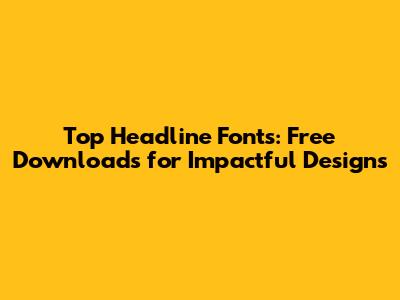
- They grab attention: In a world saturated with information, a striking headline font can cut through the noise and capture the reader's interest.
- They set the tone: The font choice communicates the overall mood and style of your content, whether it's professional, playful, elegant, or edgy.
- They improve readability: A well-chosen headline font is easy to read and understand, even at a glance.
- They reinforce branding: Consistent use of specific headline fonts can strengthen brand recognition and create a cohesive visual identity.
- They guide the eye: Headlines act as signposts, guiding the reader through the content and highlighting key information.
- Consider your brand: Your headline font should reflect your brand's personality and values. If your brand is modern and edgy, a bold sans-serif font might be a good choice. If your brand is classic and elegant, a serif font might be more appropriate.
- Think about your target audience: Your headline font should appeal to your target audience. If you're targeting a young audience, a playful and quirky font might be a good choice. If you're targeting a professional audience, a more serious and sophisticated font might be better.
- Ensure readability: Your headline font should be easy to read, even at a glance. Avoid fonts that are too decorative or stylized, as they can be difficult to decipher.
- Test different options: Experiment with different headline fonts to see what works best for your project. Try pairing different fonts together to create a unique and eye-catching effect.
- Don't be afraid to break the rules: While it's important to follow best practices, don't be afraid to break the rules and try something new. The most important thing is to choose a headline font that you love and that effectively communicates your message.
Choosing the right headline font can make or break your design. A compelling headline grabs attention and draws readers into your content. Luckily, there are tons of fantastic headline fonts available for free download. In this article, we'll explore some of the best options to help you create impactful designs that stand out. We'll cover everything from classic serif fonts to modern sans-serif styles, ensuring you find the perfect match for your project.
Why Headline Fonts Matter
Headline fonts are more than just text; they are a crucial element of visual communication. The right font can convey the tone, style, and message of your content instantly. Imagine designing a poster for a rock concert using a delicate script font—it just wouldn't work, right? Similarly, using a playful, cartoonish font for a serious business presentation would undermine your credibility. Headline fonts are essential because:
Selecting the perfect headline font involves considering several factors. Think about the target audience, the message you want to convey, and the overall design aesthetic. A font that works well for a tech blog might not be suitable for a children's book. It's also essential to ensure that the font is legible at various sizes and in different contexts. Experiment with different options and don't be afraid to mix and match fonts to create a unique and eye-catching effect. With the right headline font, you can transform your designs from ordinary to extraordinary.